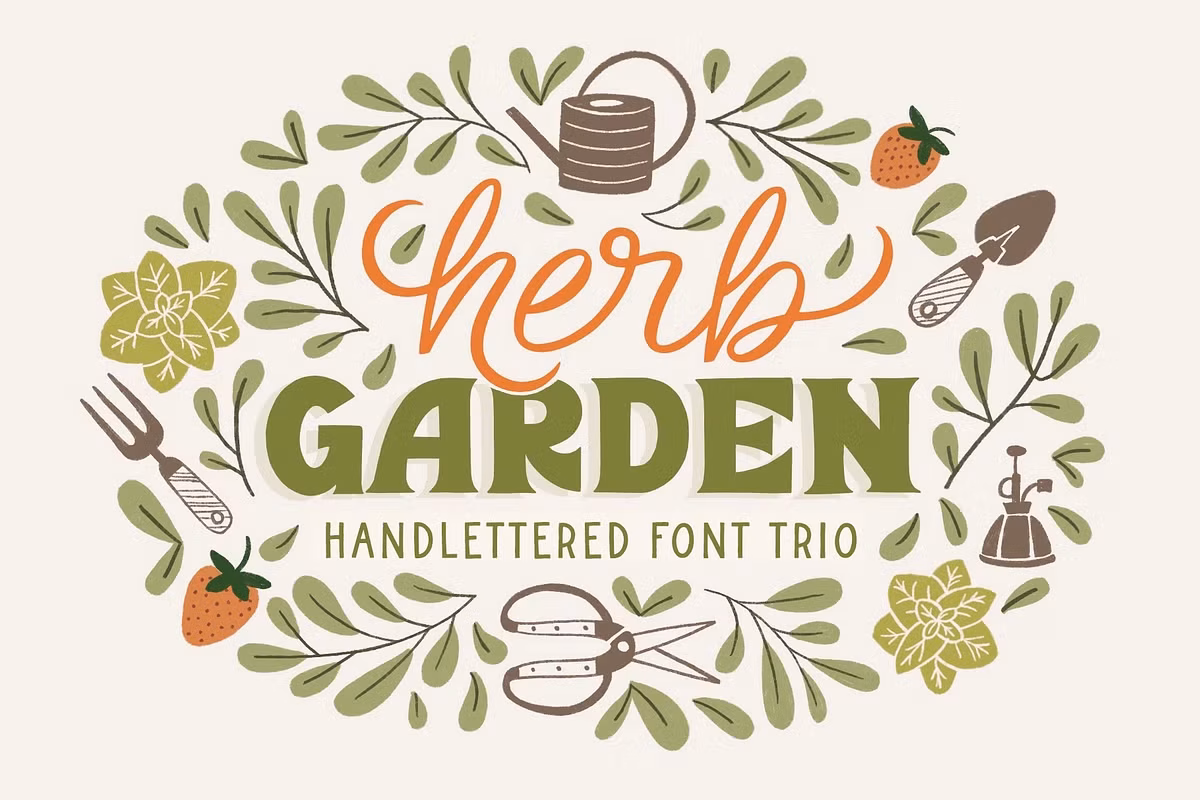
Herb Garden Font Trio Free Download
Herb Garden Font Trio Free Download is a charming and versatile collection of three unique fonts designed to bring a natural, organic feel to your projects. Perfect for logos, branding, invitations, packaging, and more, this trio combines elegant script, playful sans-serif, and a decorative font to offer endless creative possibilities. Whether you want a fresh, earthy vibe or a stylish modern look, Herb Garden Font Trio has something for every project.